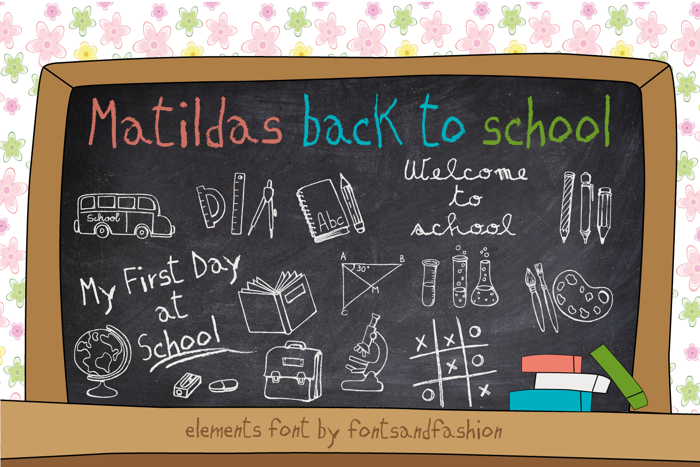
MATILDAS BACK TO SCHOOL Font
“MATILDAS BACK TO SCHOOL” is an elements font inspired by my little niece's school time .
Her name is Matilda and she is six years old. One day she's shown me her writings and drawings and I fell in love with them immediately.
They was so cute!!! I love her shaky writing and the funny doodles.
Well, this is the short story about how “MATILDAS BACK TO SCHOOL” elements fonts was created.
"MATILDAS BACK TO SCHOOL" is composed by 63 elements:
52 School Symbols
5 School Subjects
6 School Slogan